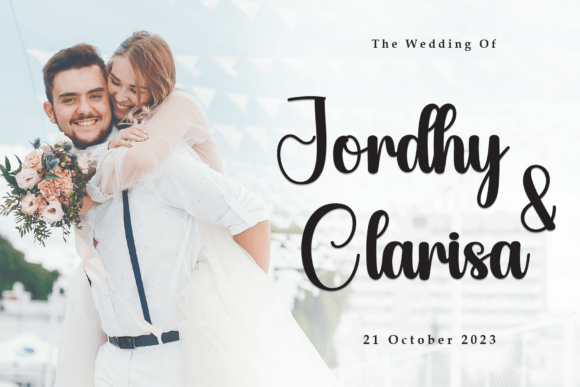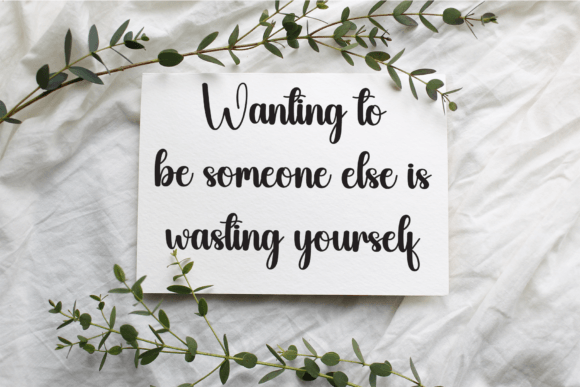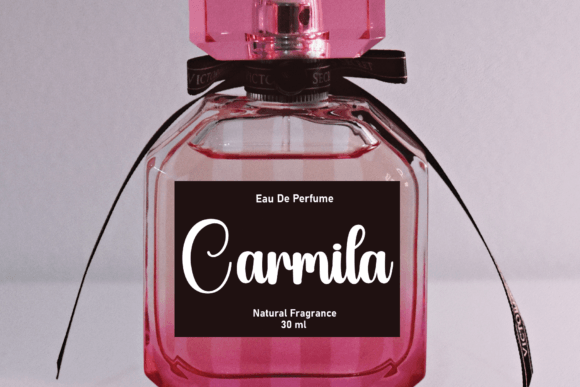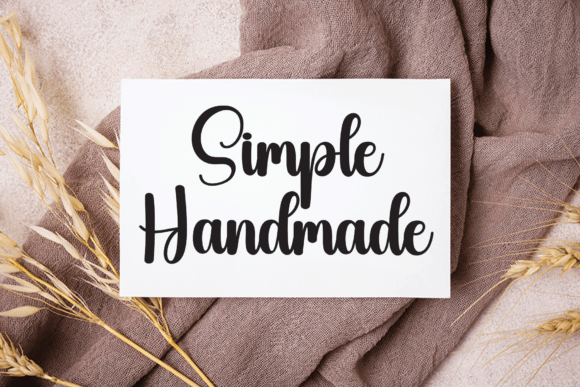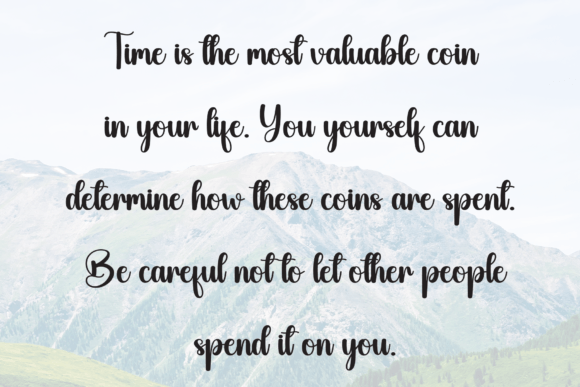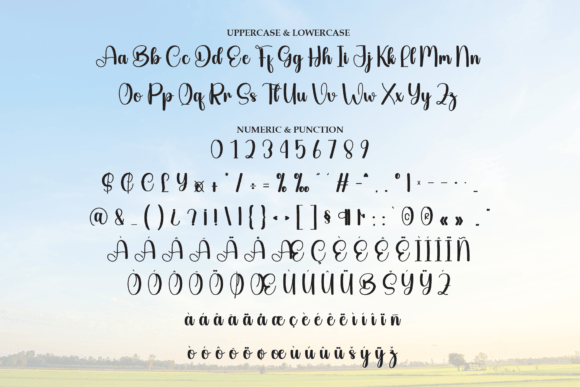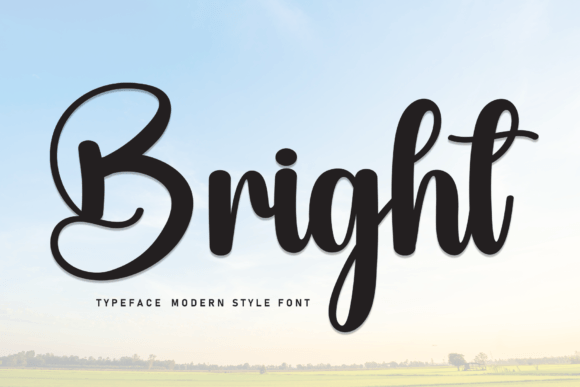
Introducing Bright Font: The Perfect Balance of Playful and Professional
Are you tired of using fonts that are either too dull or too overwhelming? Look no further than Bright Font, a bold and expressive typeface that’s perfect for a wide range of design projects. With its thick and solid lines, Bright Font is easy to read and understand, making it an excellent choice for designers and crafters who want to make a statement.
The Characteristics of Bright Font
So, what makes Bright Font so special? For starters, its thick and solid lines give it a bold and confident look that’s hard to ignore. This makes it perfect for headlines, titles, and other applications where you want to grab the reader’s attention. At the same time, the font’s conservative bends prevent it from feeling overwhelming or over-the-top, making it suitable for use in a wide range of contexts.
Another key characteristic of Bright Font is its balance of playful and professional elements. While it’s certainly bold and eye-catching, it’s not so playful that it feels unprofessional or immature. This makes it an excellent choice for designers and crafters who want to add some personality to their work without sacrificing credibility.
The Benefits of Using Bright Font
So, why should you choose Bright Font for your next design project? For one thing, its bold and expressive lines make it perfect for use in a wide range of applications, from posters and flyers to logos and branding materials. Additionally, its conservative bends and balanced design make it easy to read and understand, even at smaller sizes.
Another benefit of Bright Font is its versatility. Whether you’re working on a playful and creative project or a more professional and corporate one, this font is sure to fit the bill. Its unique blend of bold and professional elements makes it suitable for use in a wide range of contexts, from children’s books and educational materials to business cards and marketing materials.
Design Projects Perfect for Bright Font
So, what kinds of design projects are perfect for Bright Font? The answer is: a wide range of them! Here are just a few ideas to get you started:
- Posters and Flyers: Bright Font is perfect for creating eye-catching posters and flyers that grab the reader’s attention.
- Logos and Branding: The font’s bold and professional elements make it an excellent choice for logos and branding materials.
- Children’s Books: Bright Font’s playful and fun elements make it perfect for use in children’s books and educational materials.
- Business Cards: The font’s professional and conservative elements make it suitable for use on business cards and other corporate materials.
- Signage: Bright Font’s bold and easy-to-read lines make it perfect for use in signage and other applications where visibility is key.
Tips for Using Bright Font
So, how can you get the most out of Bright Font? Here are a few tips to keep in mind:
- Use it boldly: Bright Font is designed to be seen, so don’t be afraid to use it in bold and eye-catching ways.
- Experiment with colors: The font’s bold lines and conservative bends make it perfect for use with a wide range of colors and color schemes.
- Mix it with other fonts: Bright Font pairs well with a wide range of other fonts, so don’t be afraid to experiment with different combinations.
In conclusion, Bright Font is a bold and expressive typeface that’s perfect for a wide range of design projects. Its unique blend of playful and professional elements makes it suitable for use in everything from posters and flyers to logos and branding materials. With its thick and solid lines, conservative bends, and easy-to-read design, Bright Font is sure to become a go-to font for designers and crafters who want to make a statement.